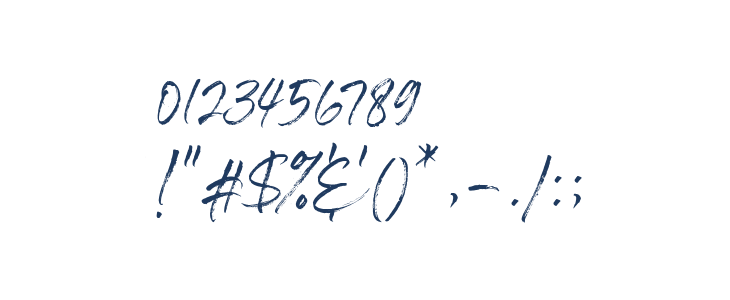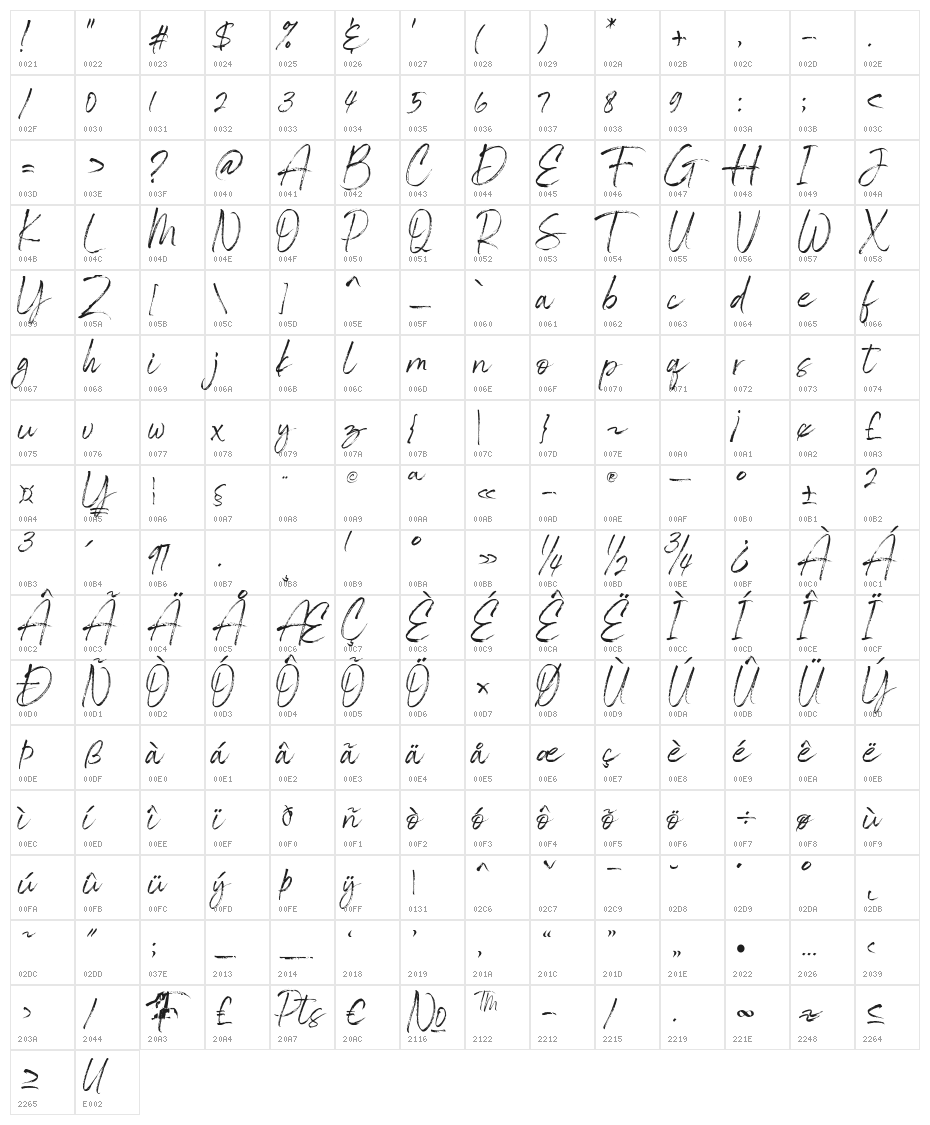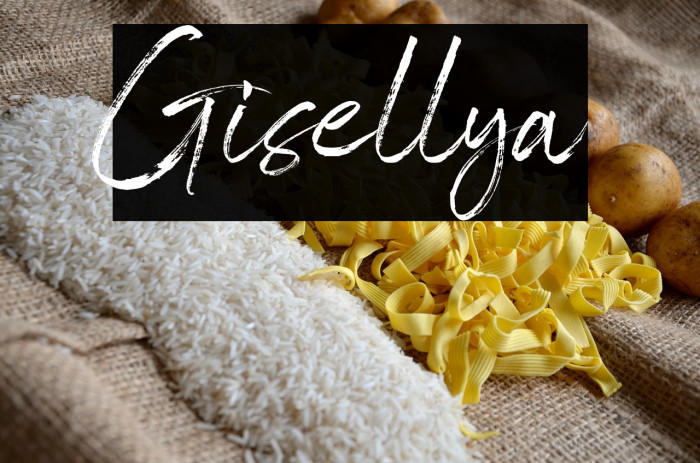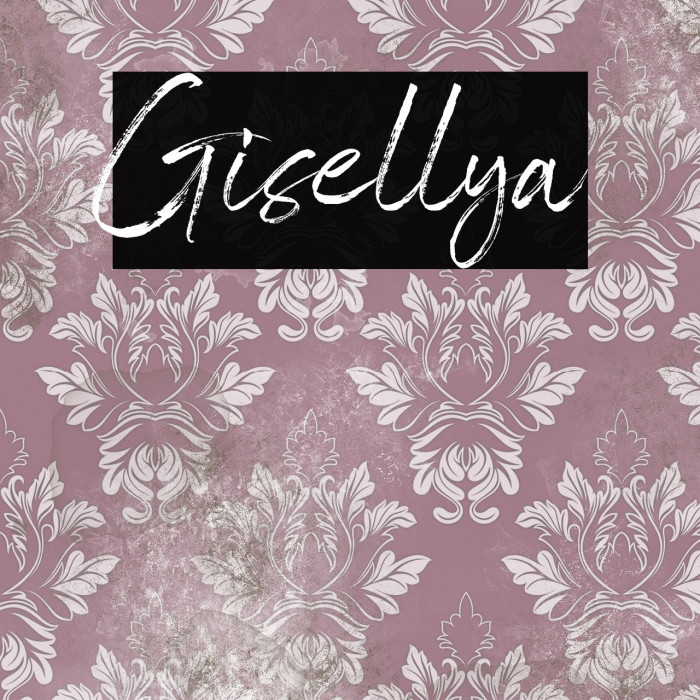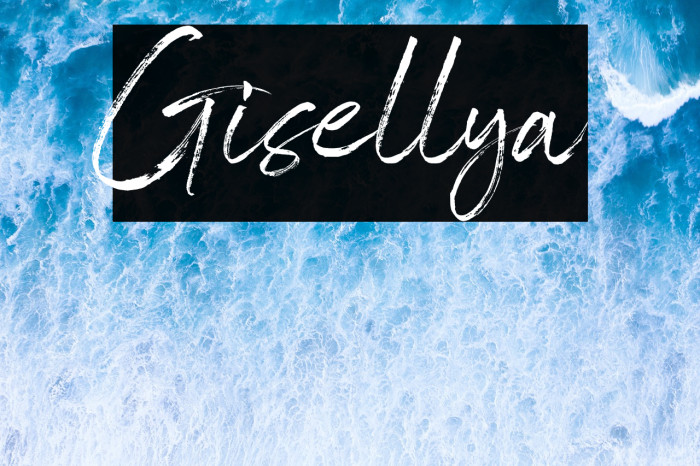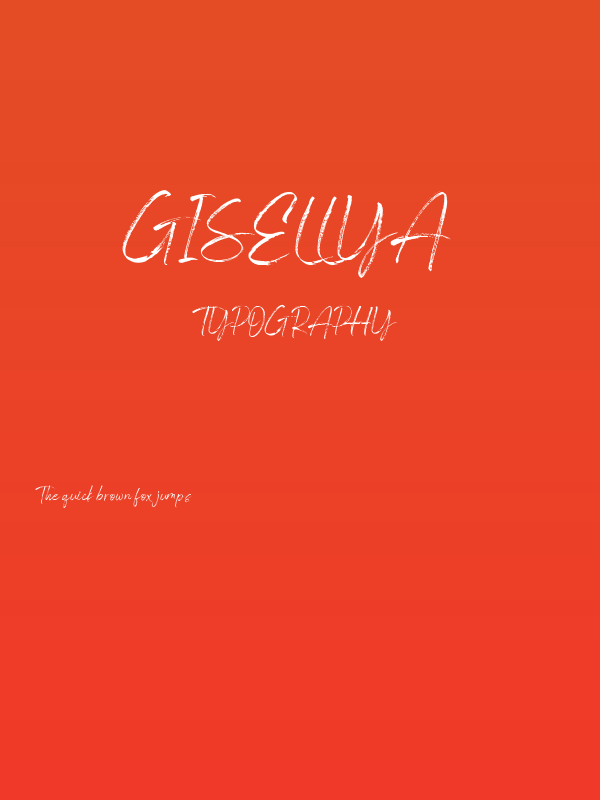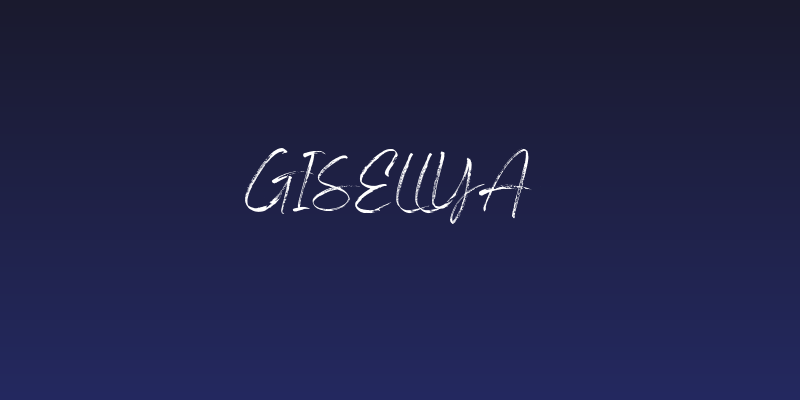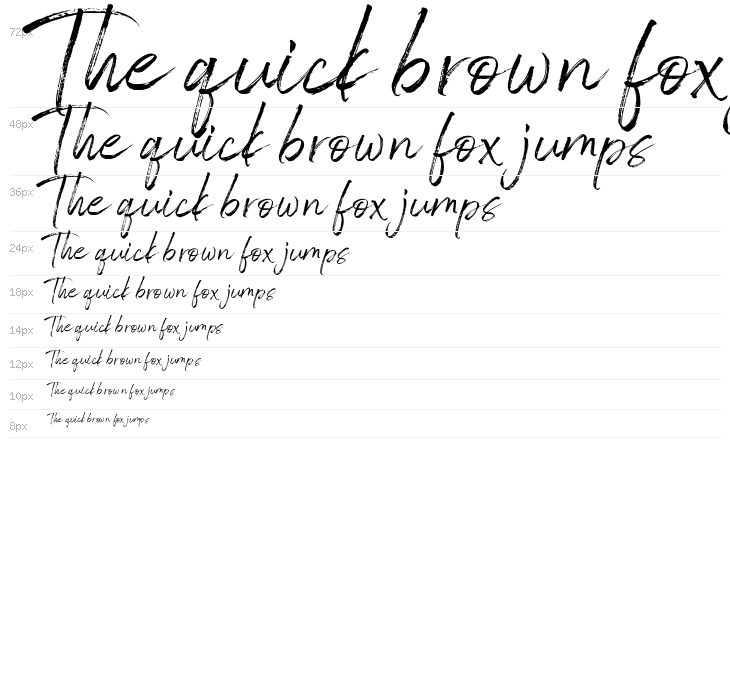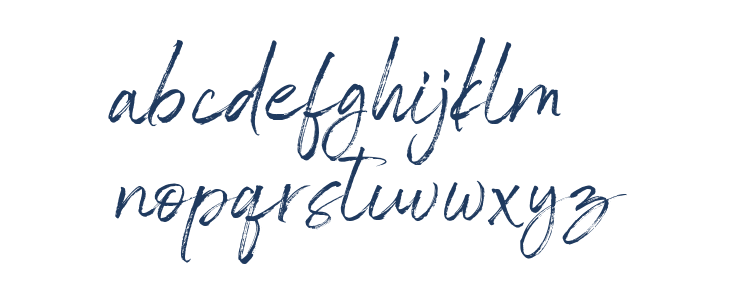
Gisellya Font
Gisellya Description
This font exudes a lively and expressive handwritten style, characterized by its fluid and dynamic strokes. The letters are crafted with a natural, flowing motion, giving the impression of being written with a brush or a broad-tipped pen. The uppercase letters are bold and prominent, while the lowercase letters maintain a consistent rhythm and elegance. The numerals and special characters are designed to complement the overall aesthetic, maintaining the same energetic and artistic flair. This font is perfect for projects that require a personal touch or a creative, artistic vibe.
| Use Case | Logos, Invitations, Artistic Posters |
| Proposed Projects | Ideal for wedding invitations, greeting cards, artistic posters, and branding that requires a personal, creative touch. |